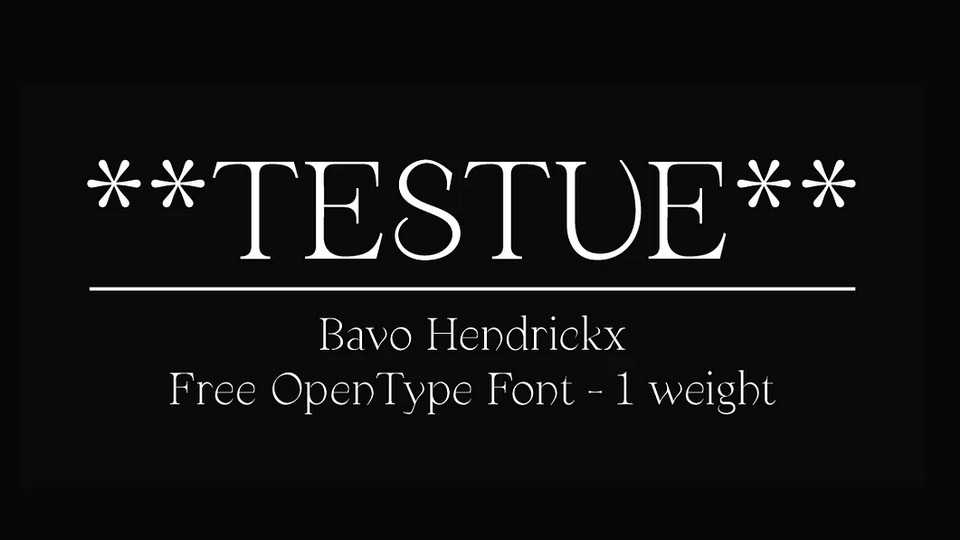
Download Testue font, a modern high contrast serif typeface made for display and title text. Testue is perfect for editorial use and a highly flexible solution for any display need.
Designer: Bavo Hendrickx